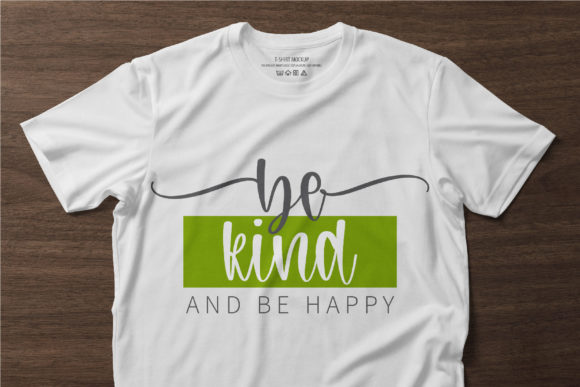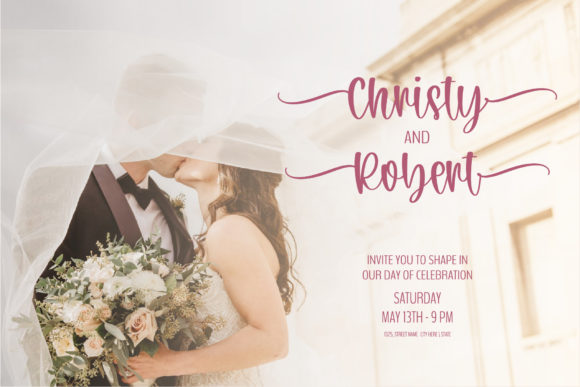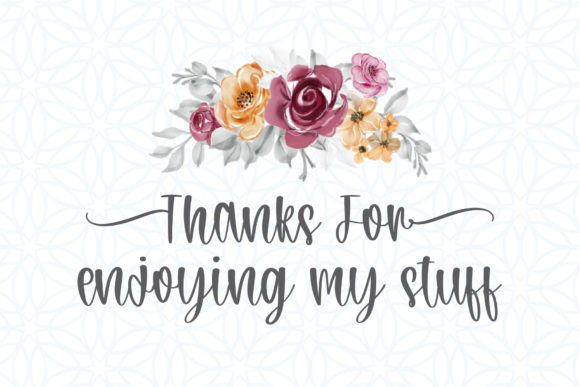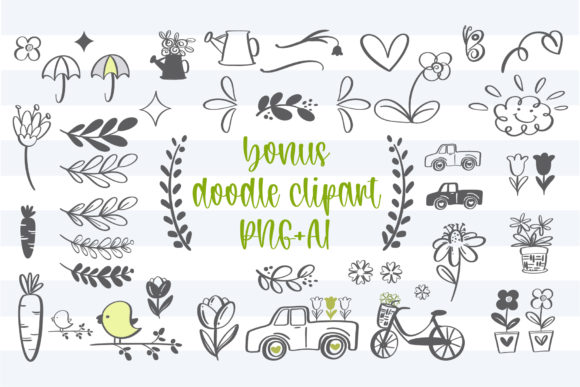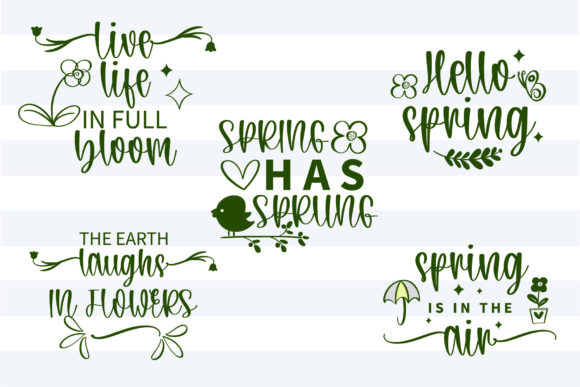
About Welcome Spring Font
Welcome Spring feels equally delicate and refined. It looks lovely on wedding invitations, thank you cards, quotes, greeting cards, logos, business cards and every other design which needs a customized touch.